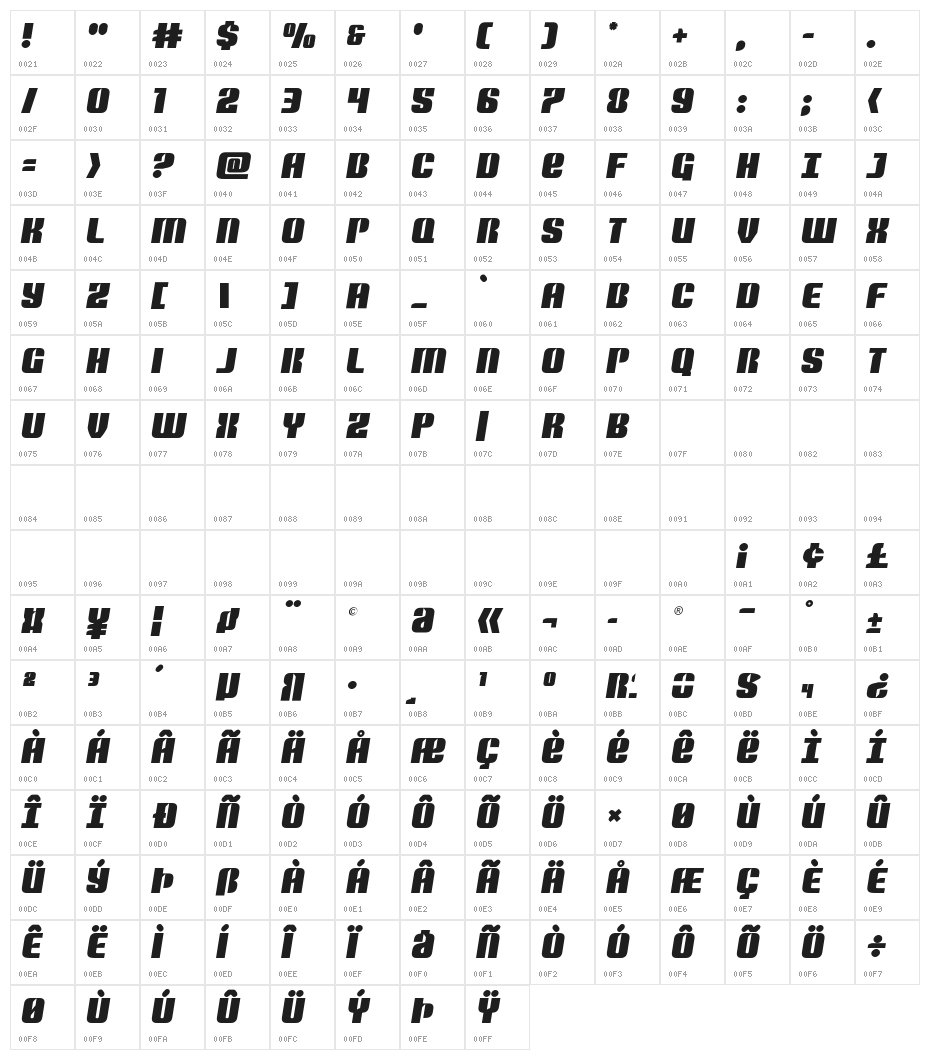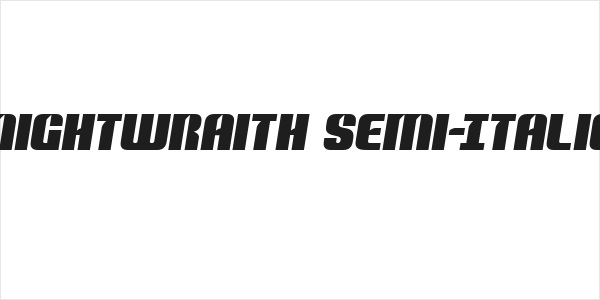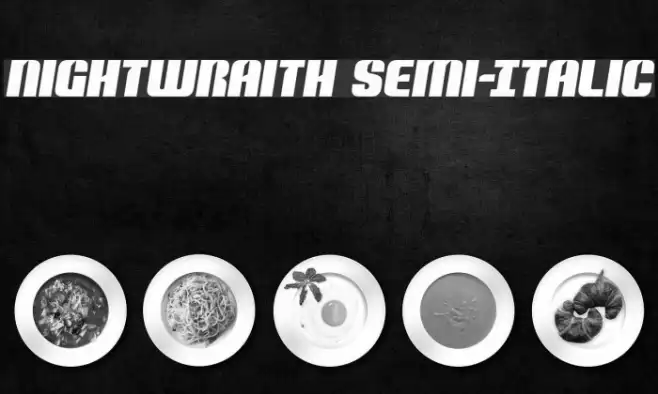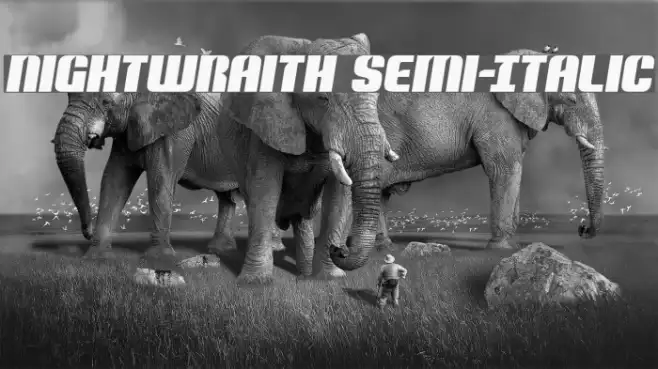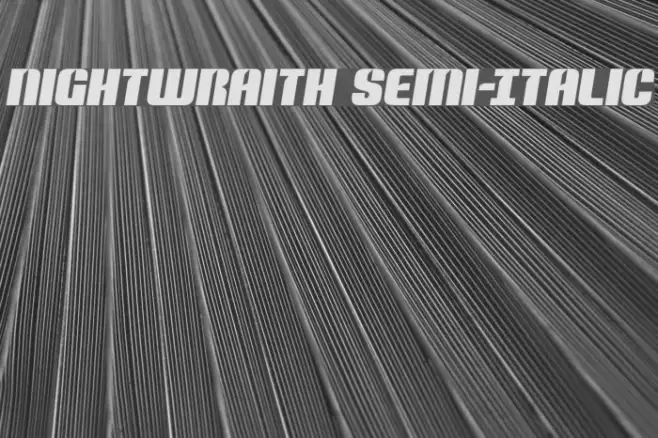
Nightwraith Semi-Italic Font
Nightwraith Semi-Italic Description
This font features a bold and dynamic style with a semi-italic slant, giving it a sense of movement and energy. The characters are wide and have a strong presence, making them ideal for attention-grabbing headlines. The strokes are thick and consistent, providing a uniform appearance across all characters. The font includes both uppercase and lowercase letters, numbers, and a variety of special characters, ensuring versatility in design applications. Its boldness and unique style make it suitable for modern and edgy projects.
| Proposed Projects | Ideal for use in branding, posters, sports team logos, and any project requiring a strong, impactful typeface. |